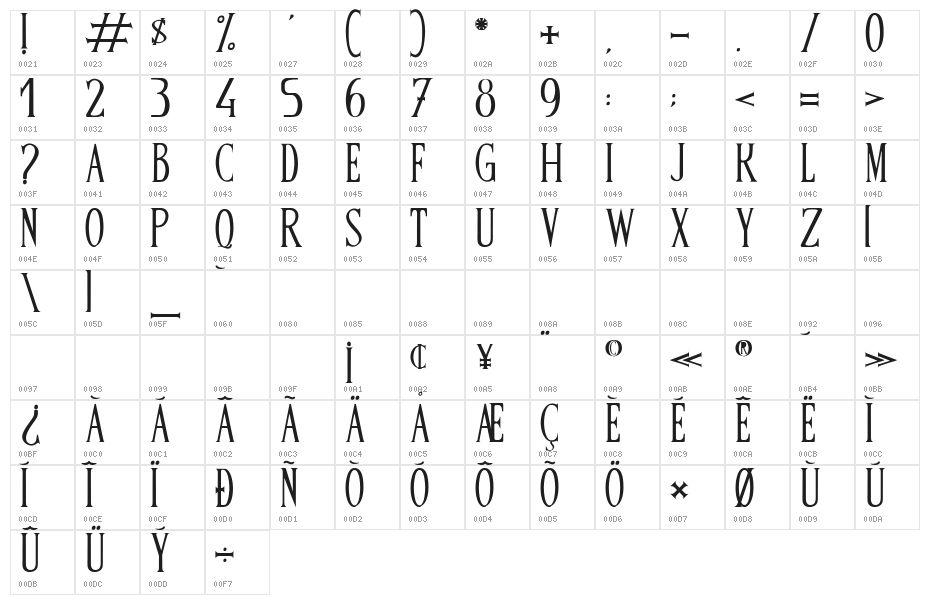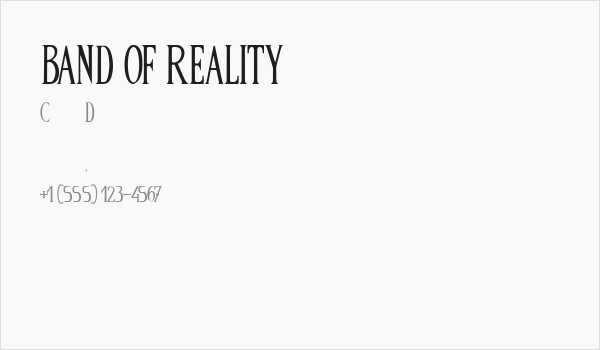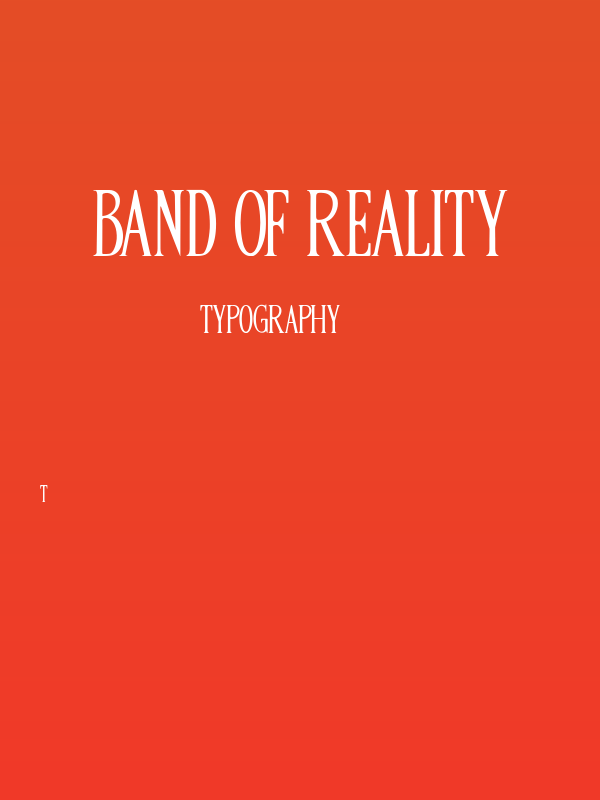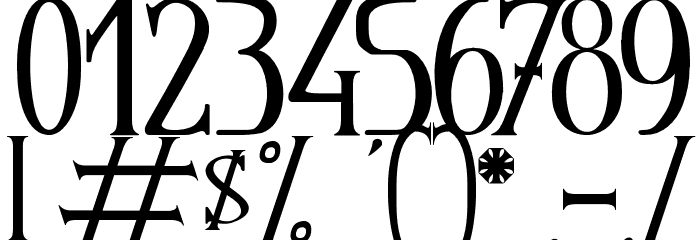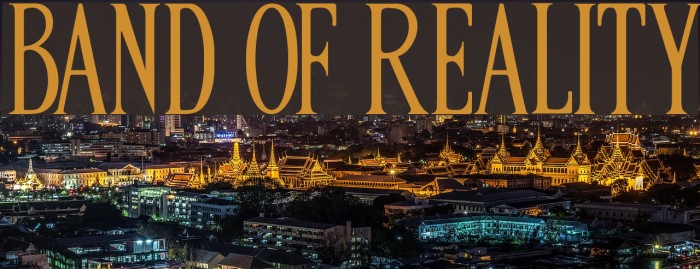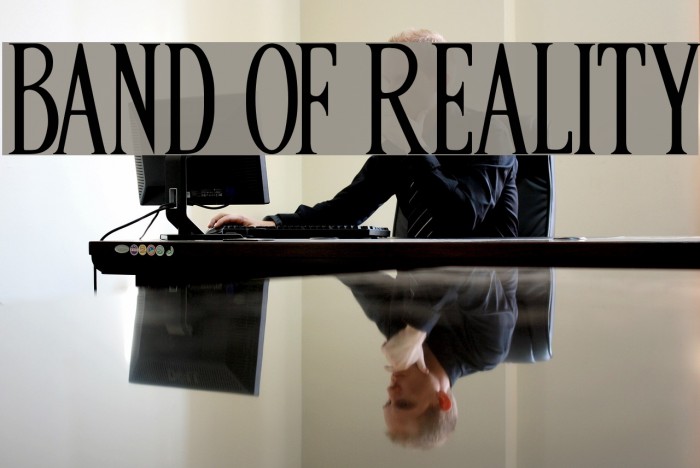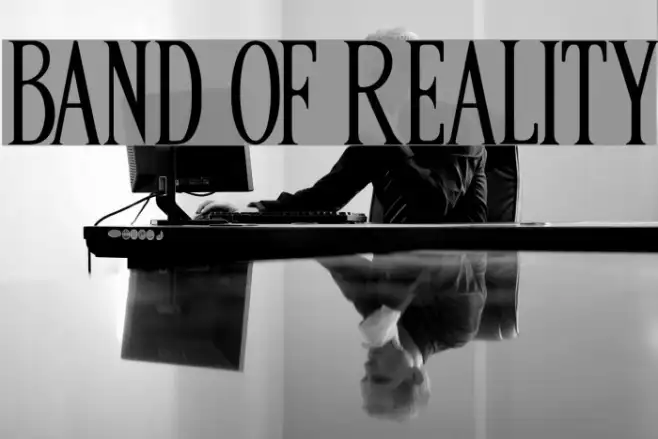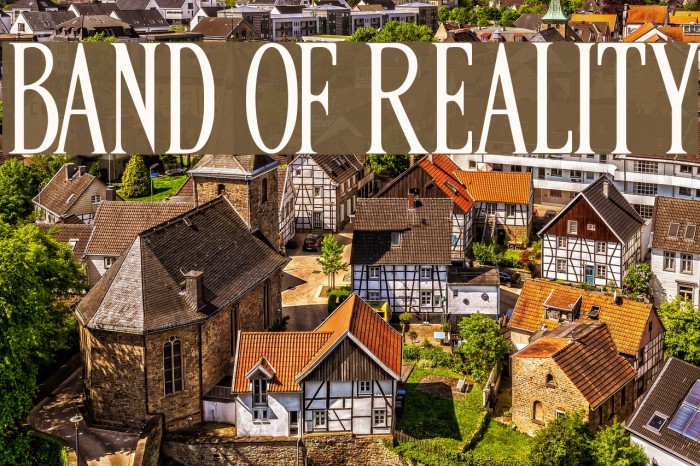
BAND OF REALITY Font
BAND OF REALITY Description
This font features a bold and dramatic style with high contrast between thick and thin strokes, giving it a striking and elegant appearance. The uppercase letters are tall and narrow, with sharp serifs that add a touch of sophistication. The numerals and special characters maintain the same boldness, ensuring consistency across all glyphs. The overall design is reminiscent of classic serif fonts but with a modern twist, making it suitable for impactful headlines and titles.
| Proposed Projects | Ideal for use in magazine headlines, book covers, posters, and branding materials where a strong visual impact is desired. |